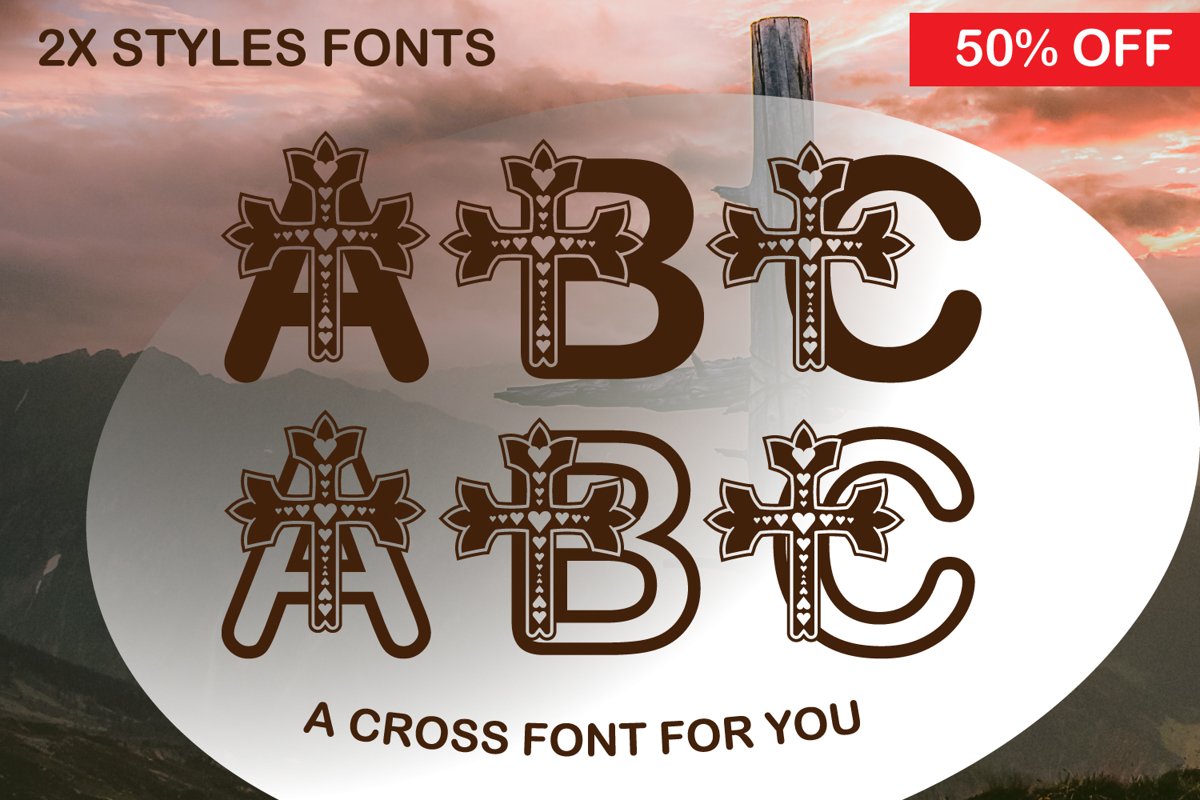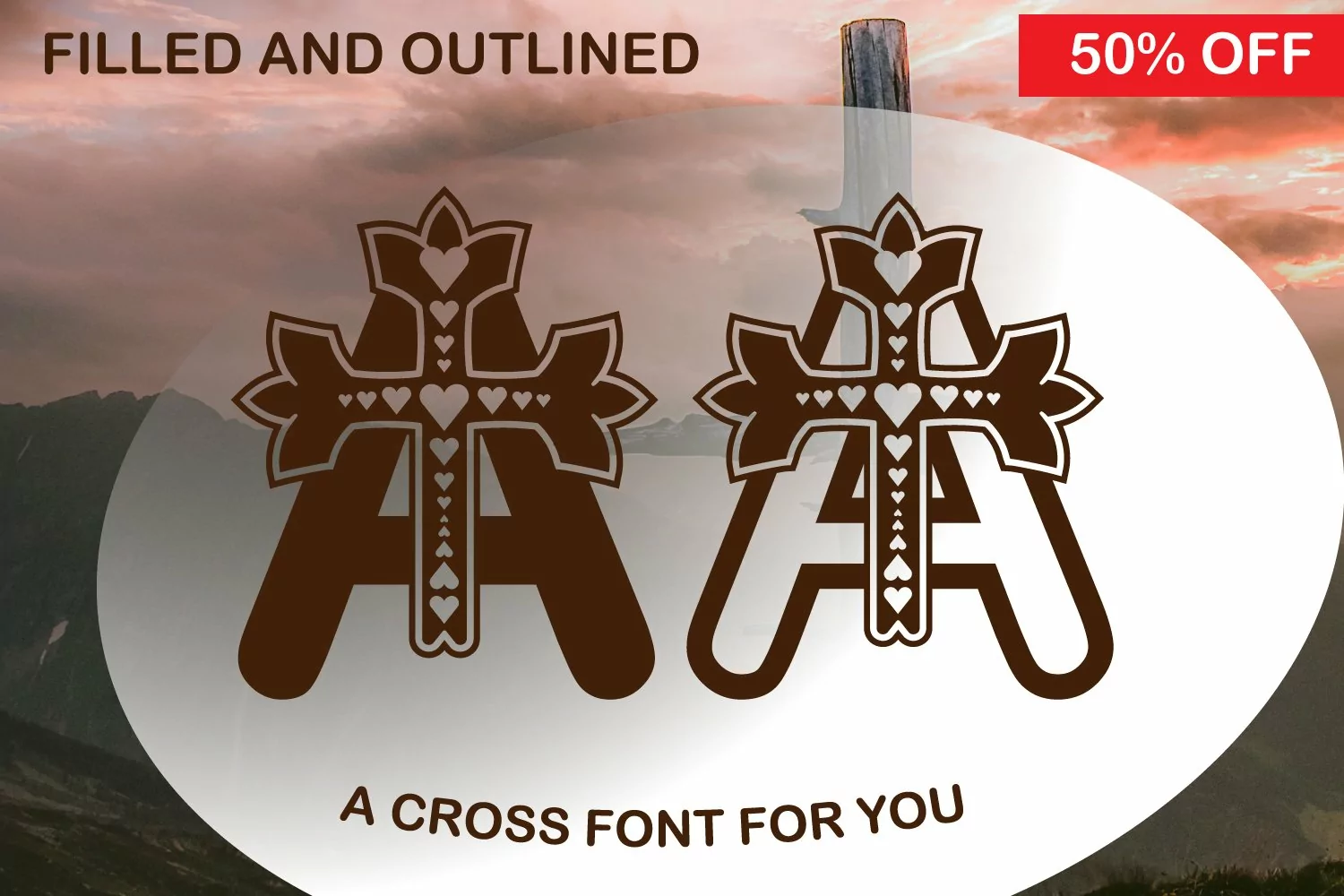
Presenting Cute font for you. A Cross Love Cute Paper cut Style can be used in tons of projects specially for child and new born projects. You can use it for craft purpose and this will looks great on shirts, printing material and other stuff.
2- UPPER Case only Letters A to Z and 0 to 9
3- Super Cute and Creative
A Cross Love